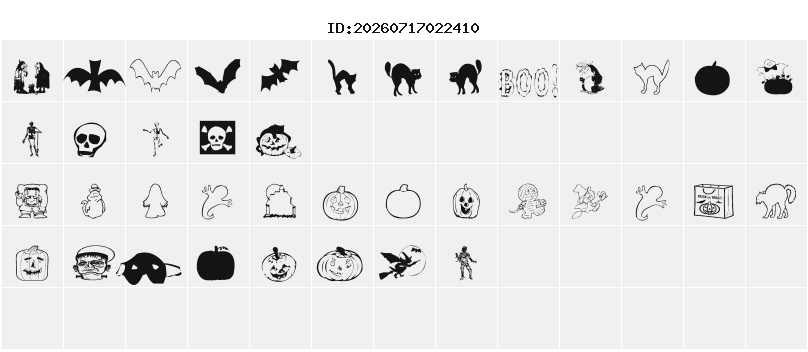
• Font Name: AEZ halloween dingbats
• Designer: Anastacia E. Zittel
• Description: halloween dingbat font made while talking to MB
About AEZ halloween dingbats.ttf